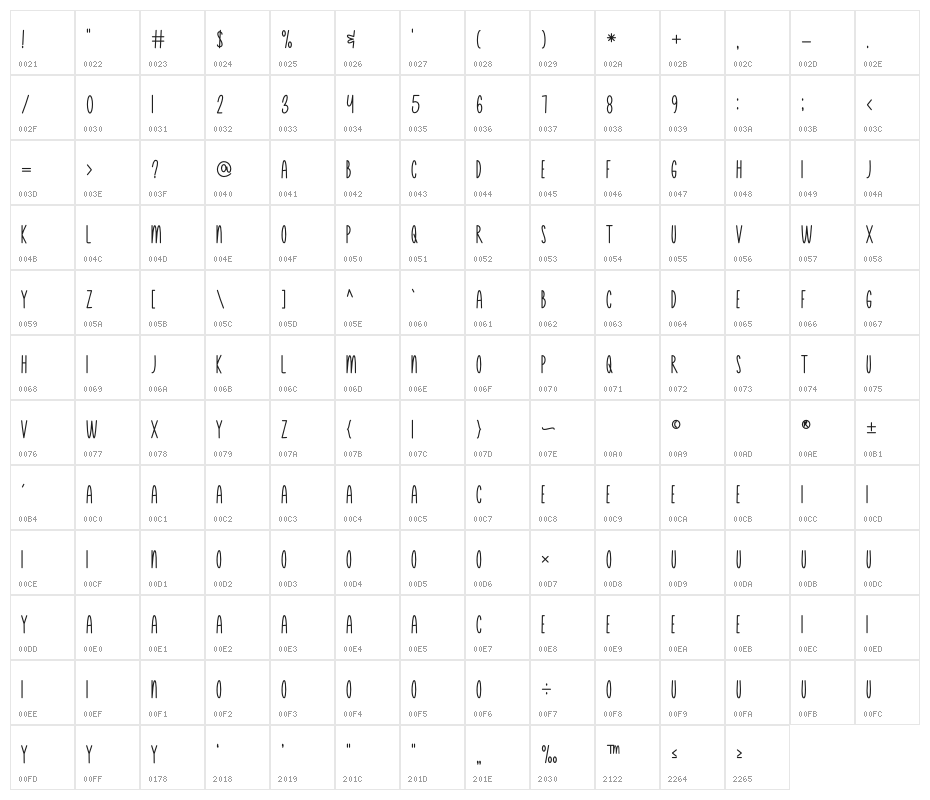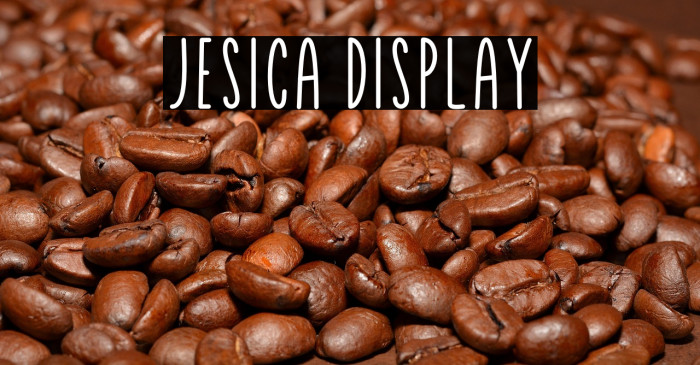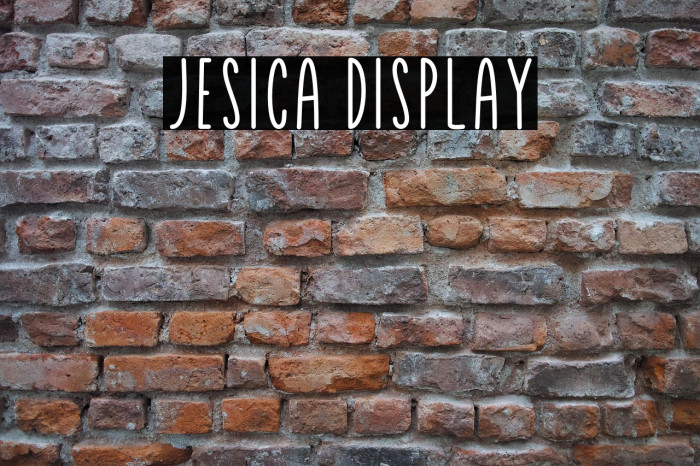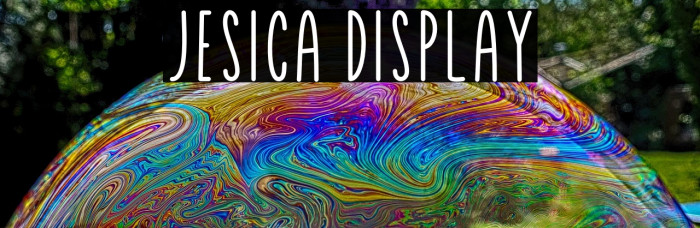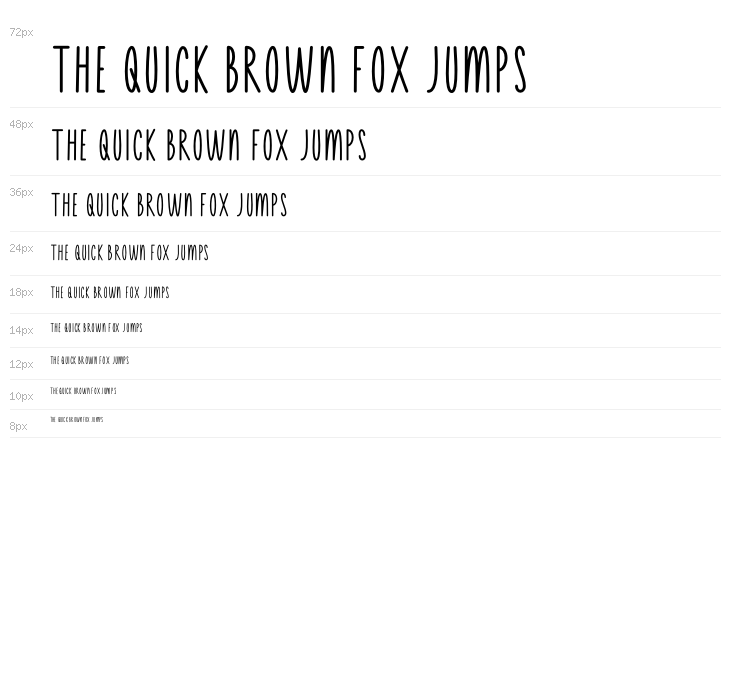
Jesica Display Font
| 全体的なスタイル | Modern, Whimsical |
| 用途 | Headlines, Logos, Creative projects |
| おすすめプロジェクト | Ideal for children's books, playful branding, greeting cards, and creative posters. |